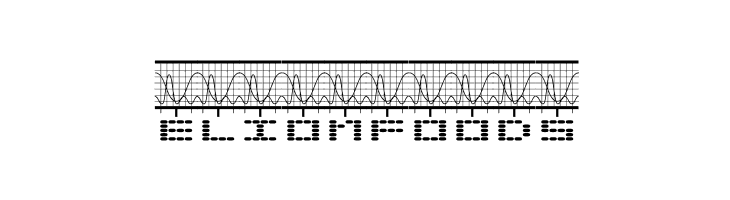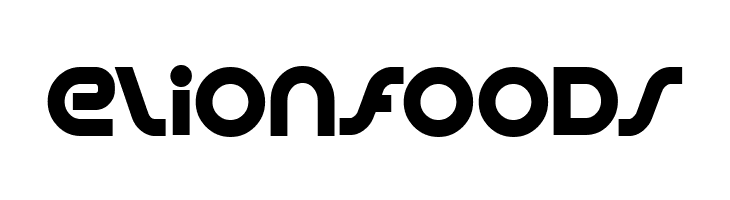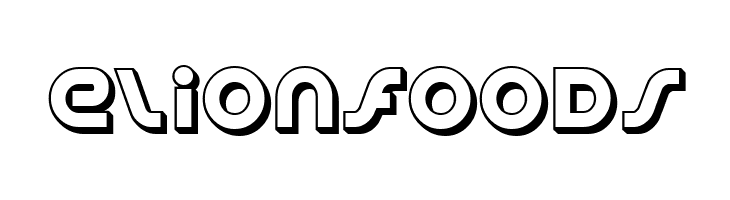
A bold, geometric font with a stencil-like appearance, ideal for impactful designs.
A bold, 3D outlined font with a modern and playful aesthetic.
A retro dot matrix style font with a pixelated, digital display appearance.